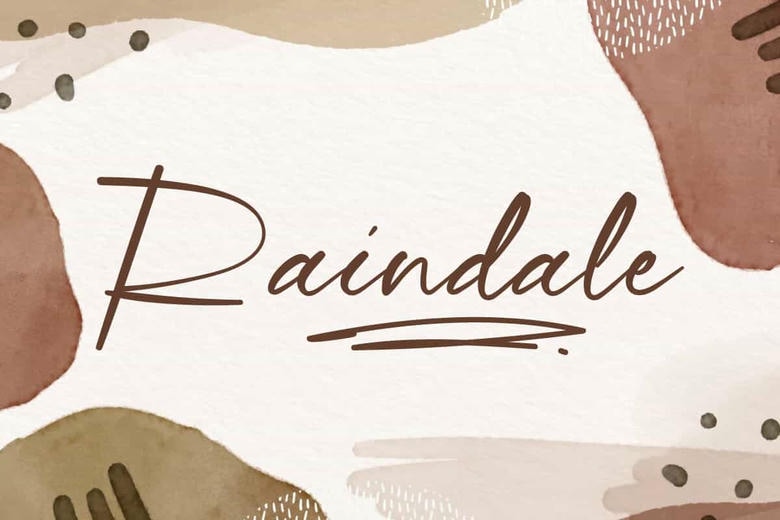
Raindale Font
Raindale is a luxurious and elegant script font with calligraphy style, created by VinType Studio. A modern font with beautiful thin lines. This font will be suitable for many industries, such as advertising, author, beauty product, craft, event or wedding organizer, fashion, florist, homeware, printing, publishing, spa and salon, and more!
Raindale includes full set of Uppercase and Lowercase Basic Characters, Numerals and Punctuation, and Swoosh. The charm that this font has will make you want to use it in various types of designs, such as brand logo, brochure, cover, custom design, label, packaging design, poster, quotes, screen printing, stationery, website, etc.
Raindale Handwritten Script Font